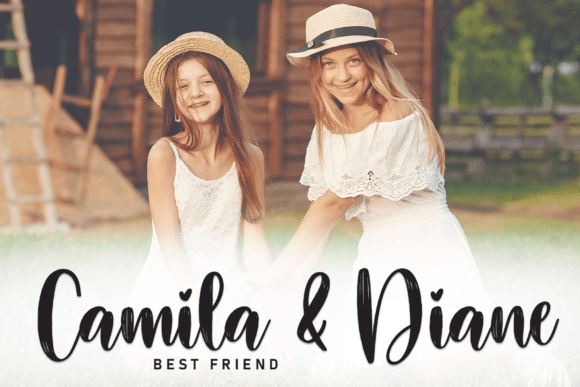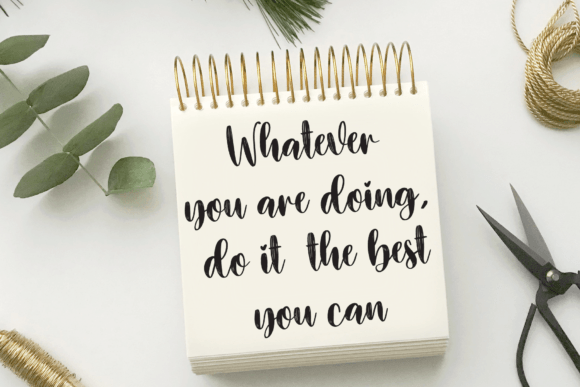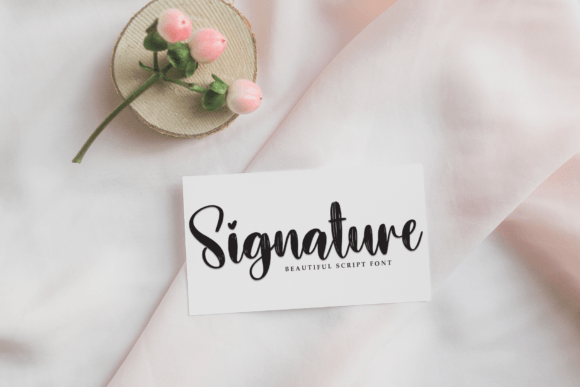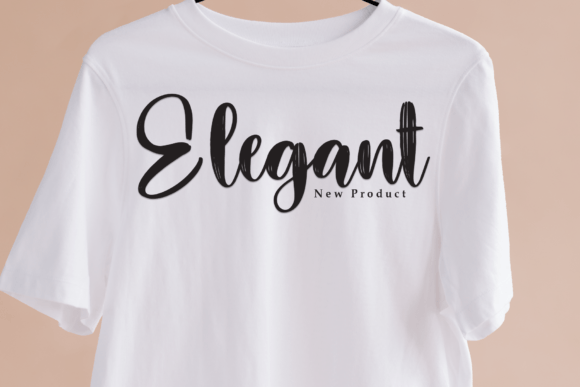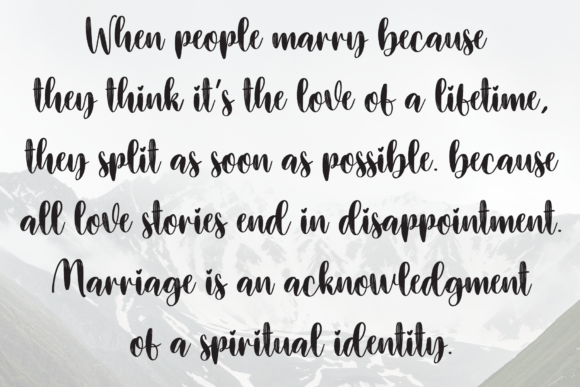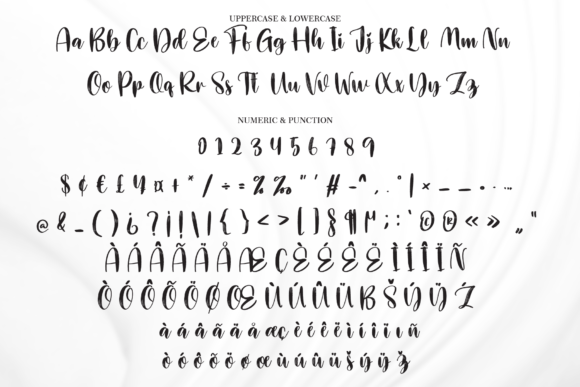
Introducing Depending Font: Elevate Your Designs with Elegance and Flair
Are you tired of using the same old fonts in your designs? Look no further than Depending Font, a delicate, elegant, and flowing handwritten font that’s sure to take your creative projects to the next level. With its beautiful and well-balanced characters, Depending Font is the perfect addition to any designer’s toolkit.
The Characteristics of Depending Font
Depending Font is a unique and versatile font that boasts a range of characteristics that make it stand out from the crowd. Its delicate and elegant strokes are perfect for creating sophisticated and refined designs, while its flowing lines add a touch of whimsy and flair. The font’s well-balanced characters ensure that it remains clear and legible, even at smaller sizes.
Why Depending Font is a Great Choice for Designers
So, why should designers choose Depending Font for their projects? Here are just a few reasons:
- Versatility: Depending Font is incredibly versatile, and can be used in a wide range of designs, from elegant wedding invitations to modern branding materials.
- Elegance: The font’s delicate and elegant strokes add a touch of sophistication to any design.
- Legibility: The well-balanced characters ensure that Depending Font remains clear and legible, even at smaller sizes.
- Uniqueness: Depending Font is a unique and distinctive font that will help your designs stand out from the crowd.
How to Use Depending Font in Your Designs
Depending Font is incredibly easy to use, and can be incorporated into a wide range of designs. Here are a few ideas to get you started:
- Wedding Invitations: Depending Font is perfect for creating elegant and sophisticated wedding invitations.
- Branding Materials: The font’s modern and refined strokes make it a great choice for branding materials, such as logos and business cards.
- Social Media Graphics: Depending Font can add a touch of elegance and sophistication to social media graphics, such as Instagram posts and Facebook covers.
- Packaging Design: The font’s unique and distinctive strokes make it a great choice for packaging design, such as labels and product packaging.
Tips for Getting the Most Out of Depending Font
To get the most out of Depending Font, here are a few tips:
- Experiment with Different Sizes: Depending Font looks great at a range of sizes, from small and delicate to large and bold.
- Play with Color: The font’s elegant strokes look great in a range of colors, from classic black and white to bold and bright hues.
- Combine with Other Fonts: Depending Font pairs well with a range of other fonts, so don’t be afraid to experiment with different combinations.